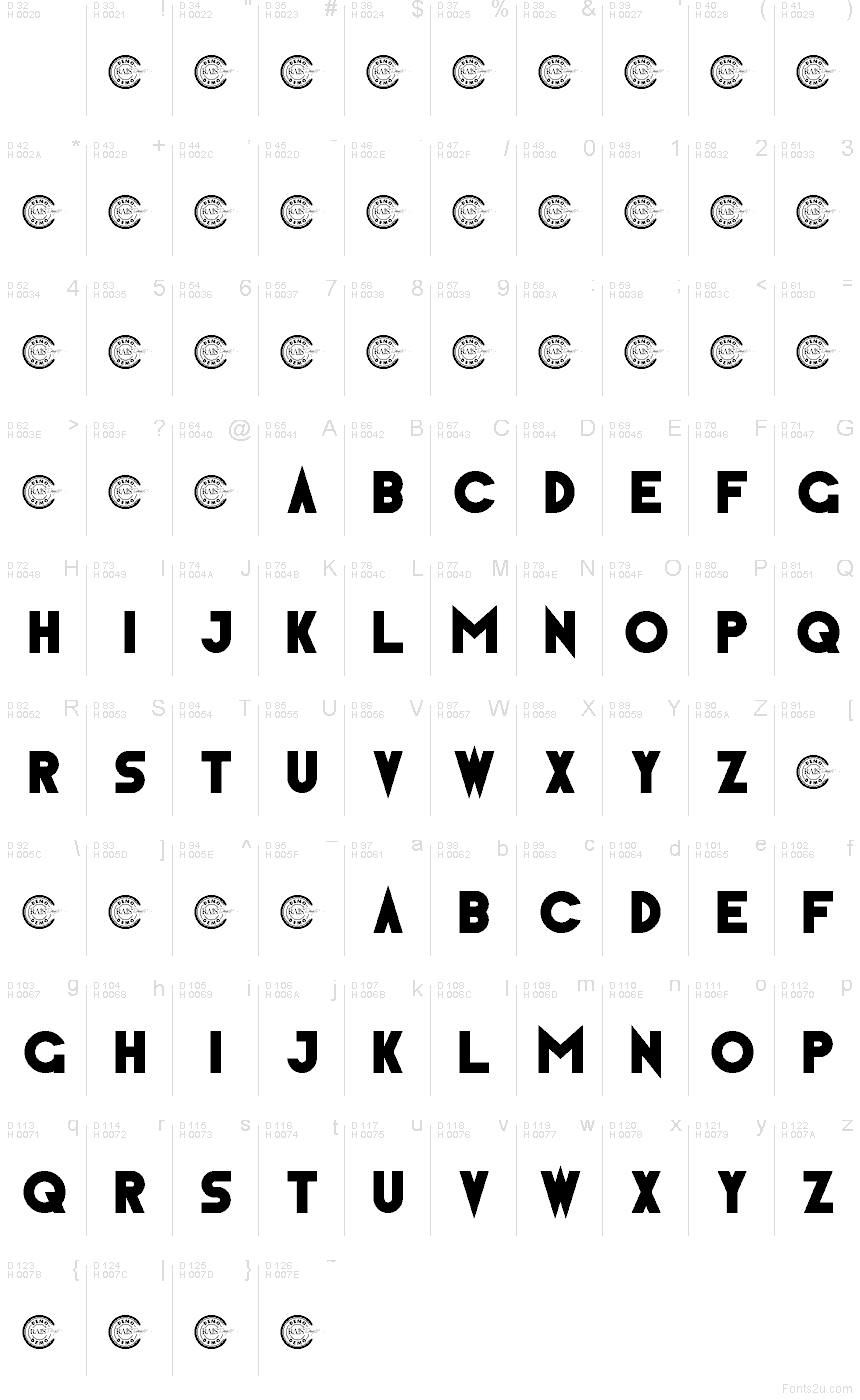
IceDrinkDemo
IceDrink font by RaisProject is a free sans serif typeface that hits like a cold splash of soda—thick, blocky letters with tight spacing and a bold, straight-edged stance. The chunky forms feel carved rather than drawn, with the curves sliced into angular counters that give the whole wordmark an icy, crystalline snap. It’s the kind of lettering that refuses to fade into the background and holds its shape even at small sizes.
Using IceDrink in your projects brings an instant sense of strength and punchy energy, making this free font a natural fit for beverage branding, sports logos, bold posters, event headlines, streetwear graphics, and packaging. It shines on short, high-impact words and strong uppercase layouts; pair it with a simple, light-weight grotesk for body copy to keep things readable while IceDrink delivers the impact.